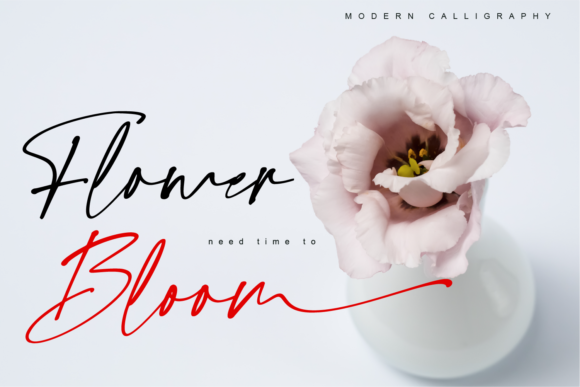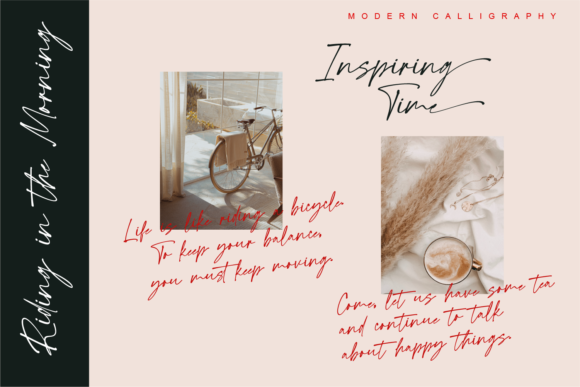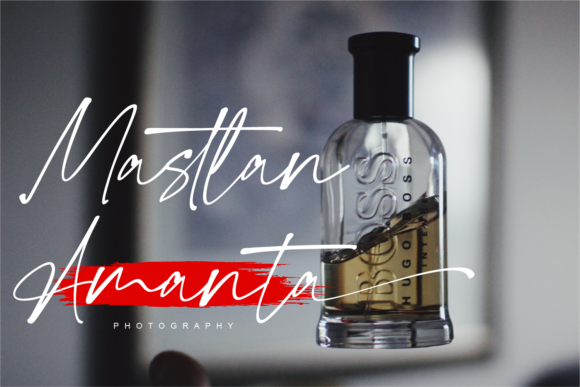
Introduction to Jollity Font
Jollity is a magical script font carefully created with a touch of elegance.
This font is PUA encoded which means you can access all of the glyphs and swashes with ease .
Jollity Font offers exceptional quality and versatility, making it a valuable addition to your design toolkit. Whether you’re creating for personal projects or commercial use, Jollity Font delivers professional results.